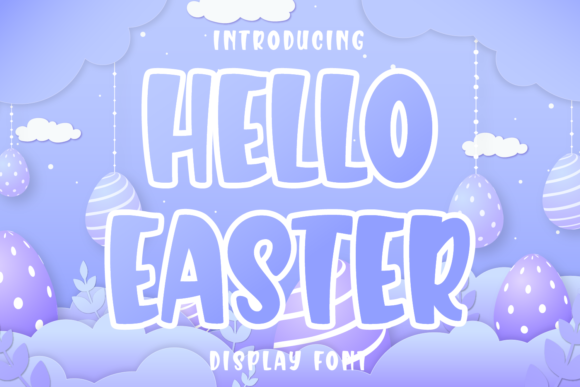
Introducing Hello Easter Font, a captivating and modern display font designed by the creative minds at Planetz Studio. With its smooth curves and stylish design, this font is the perfect choice for anyone looking to elevate their fashion branding or editorial designs.
Hello Easter Font is more than just a font; it's a statement. Its readability and intelligence make it stand out from the crowd, ensuring that your projects will leave a lasting impression on your audience. Whether you're creating a logo, a magazine layout, or a social media graphic, this font will add a touch of sophistication and class.
One of the most remarkable aspects of Hello Easter Font is its versatility. It seamlessly fits into various design styles, making it a must-have for any creative project. Its clean lines and modern aesthetics make it suitable for both digital and print media. Say goodbye to outdated and dull fonts, and welcome a fresh and captivating typographic experience.
The Hello Easter Font family offers a wide range of weights and variations, allowing you to customize your designs to perfection. From bold headlines to elegant body text, this font has got you covered. Its adaptability ensures that it can be used across multiple platforms, from websites to advertisements, without losing its impact.
But what truly sets Hello Easter Font apart is the emotional connection it creates with your audience. Its captivating design evokes feelings of joy, excitement, and curiosity. It sparks interest and draws the viewer in, making them eager to explore your content further. With Hello Easter Font, you have the power to captivate and engage your audience like never before.
In conclusion, Hello Easter Font is a font for typography enthusiasts who crave a modern, captivating, and versatile font that will take their designs to the next level. Its readability, smart design, and stylish aesthetics make it the perfect choice for fashion branding, editorial designs, and beyond. Download Hello Easter Font today and witness the power of typography in action.